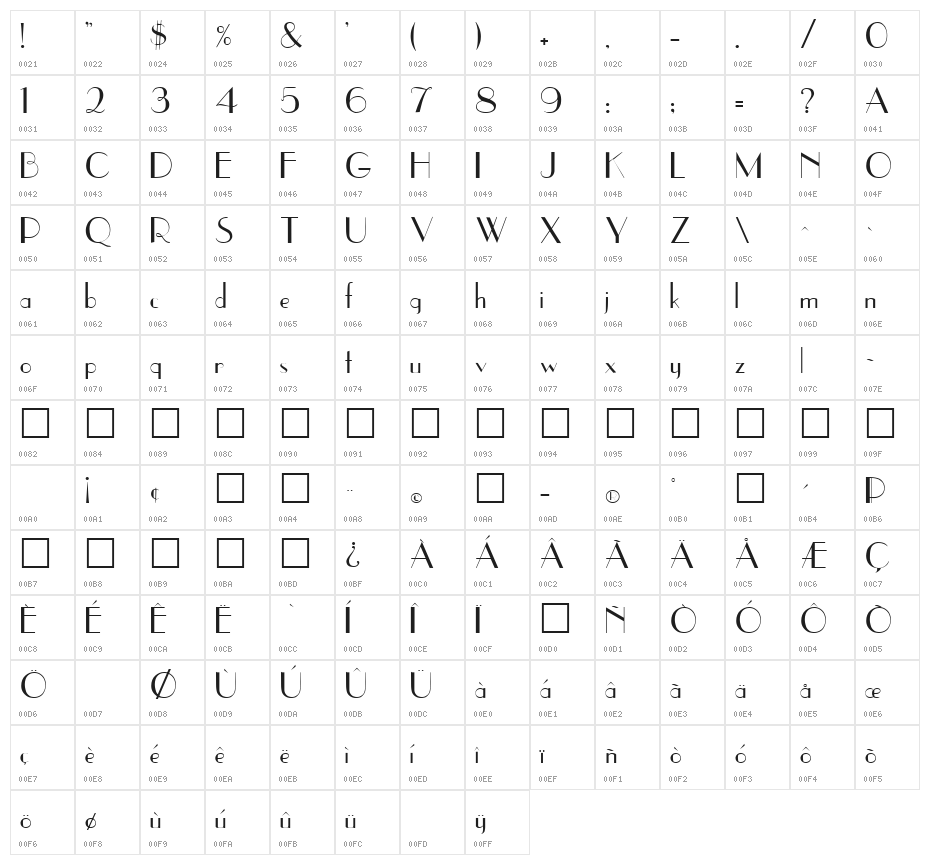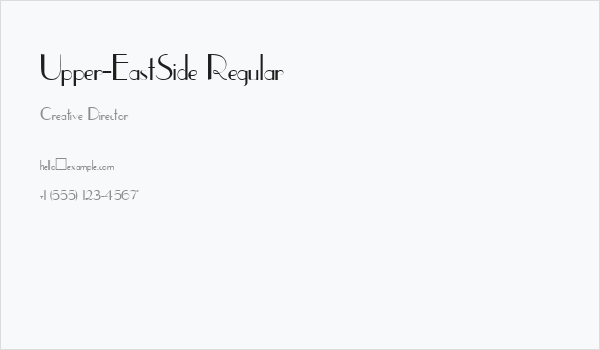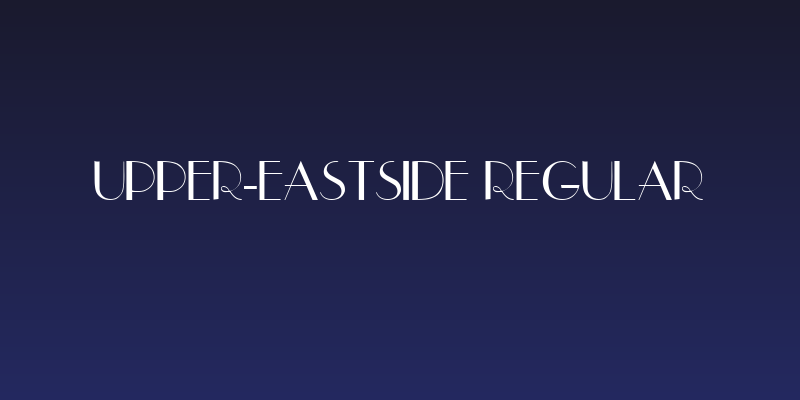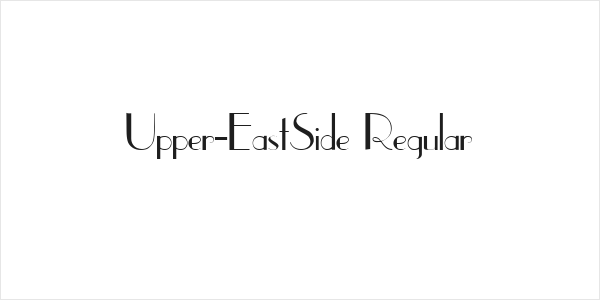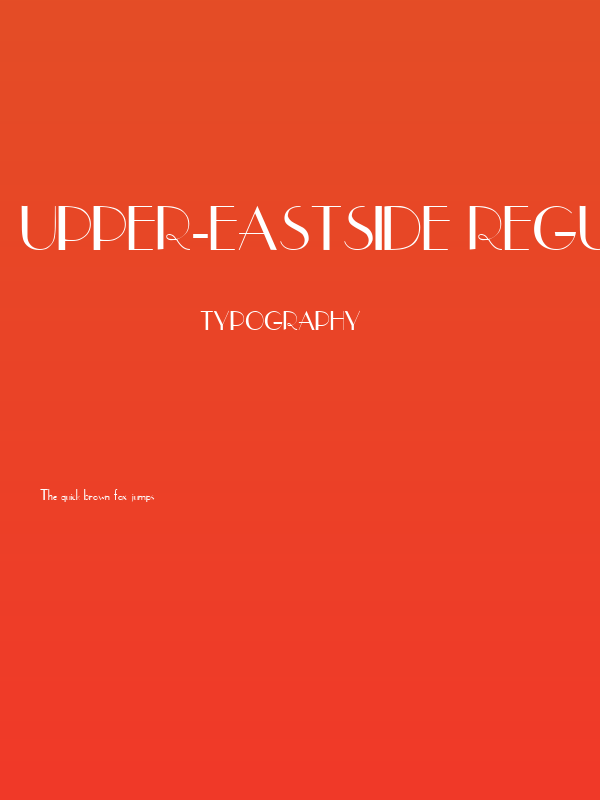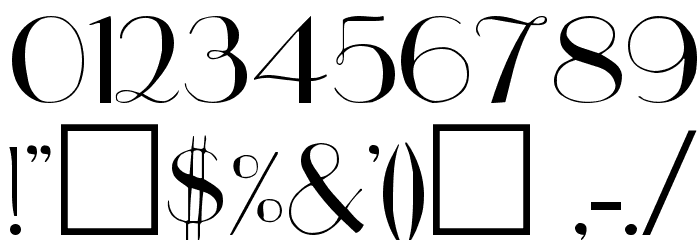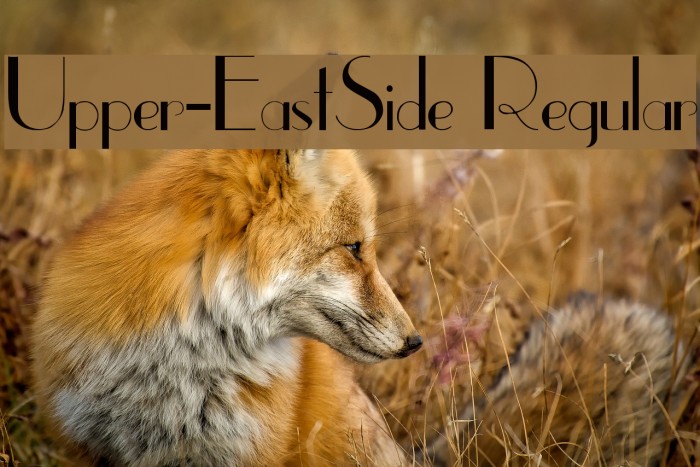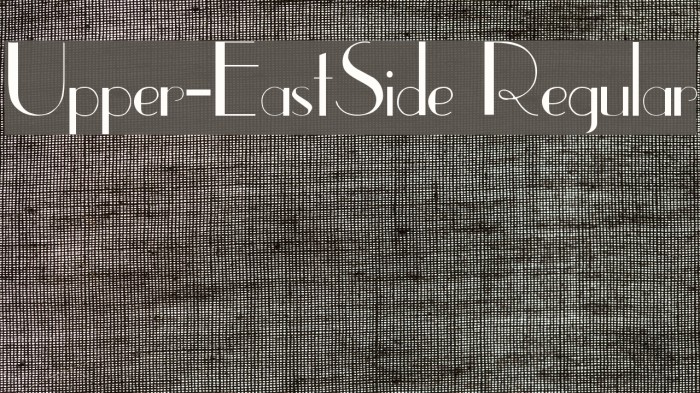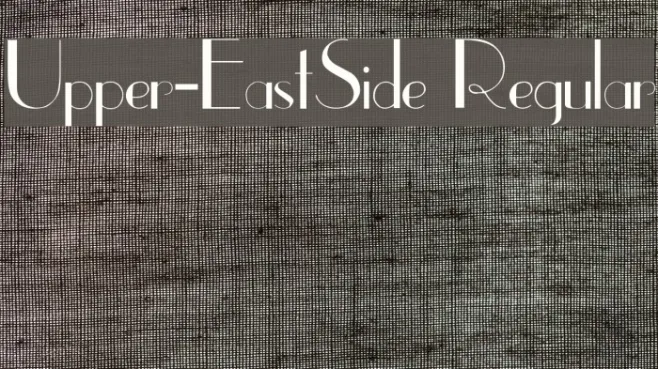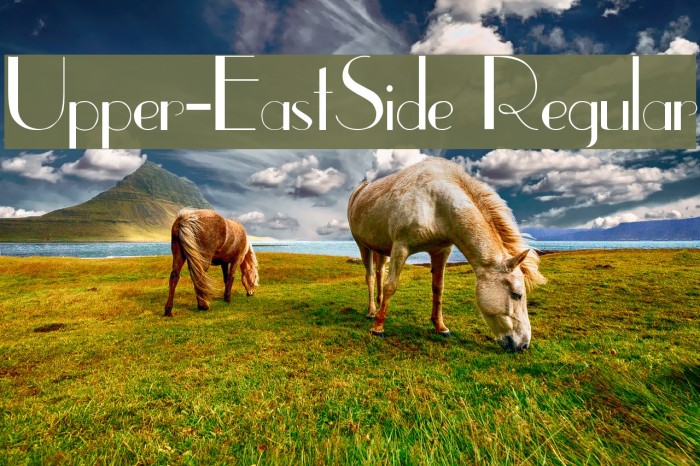
Upper-EastSide Regular Font
Upper-EastSide Regular Description
This font features an elegant and sophisticated design with a modern twist. The uppercase letters are characterized by a blend of thick and thin strokes, creating a high contrast that adds a touch of drama and flair. The lowercase letters maintain a similar style, with a sleek and refined appearance. The numerals are distinct and stylish, complementing the overall aesthetic. Special characters are designed with the same attention to detail, ensuring consistency throughout the font. This typeface is perfect for projects that require a touch of elegance and modernity.
| Use Case | Headlines, Logos, Editorial design |
| Proposed Projects | Ideal for luxury branding, editorial design, fashion magazines, and high-end product packaging. |